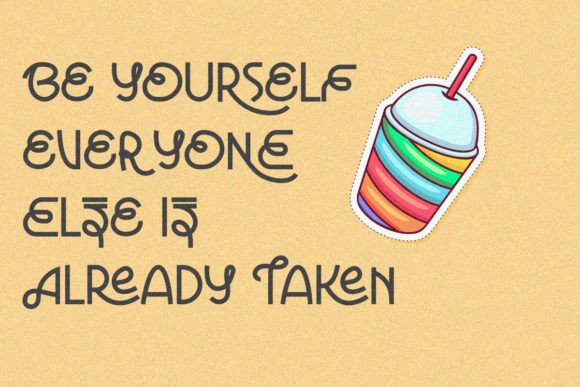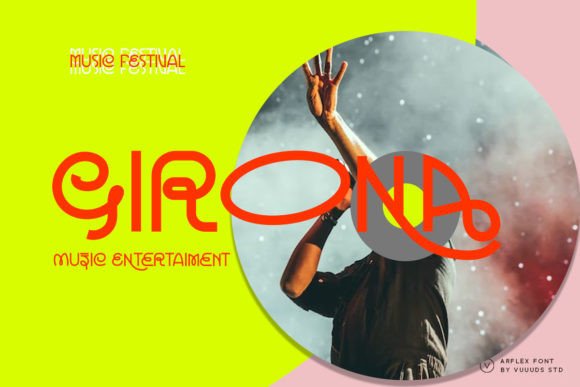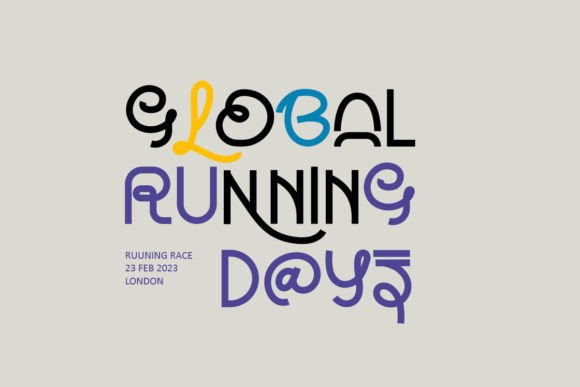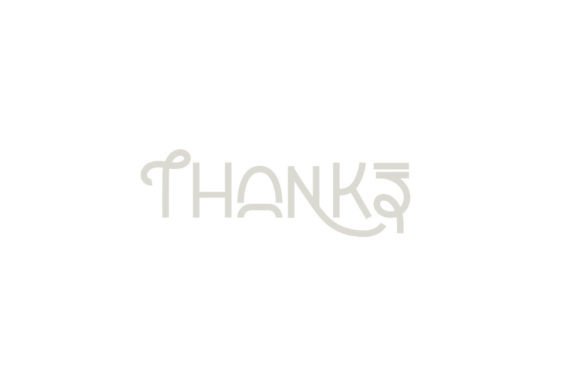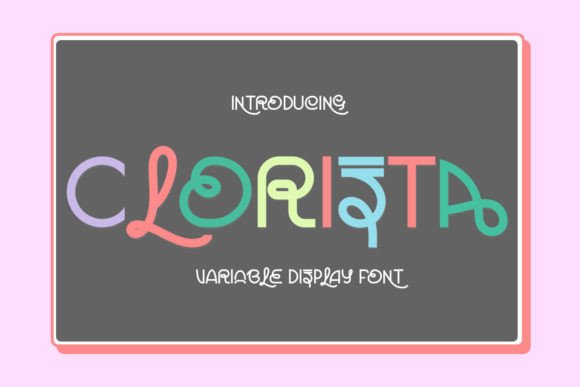
Introducing Clorista Font: The Ultimate Display Font for Joyful Designs
Are you tired of using the same old fonts in your designs? Do you want to add a touch of whimsy and playfulness to your creative projects? Look no further than Clorista Font, a cute and quirky display font that’s sure to bring a smile to your face. In this article, we’ll take a closer look at Clorista Font, its features, and how you can use it to elevate your designs.
What is Clorista Font?
Clorista Font is a display font designed to add a joyful touch to your designs. Its unique and quirky style makes it perfect for creative projects that require a bit of personality. Whether you’re a designer, crafter, or DIY enthusiast, Clorista Font is an excellent addition to your font collection.
Key Features of Clorista Font
- Cute and Quirky Style: Clorista Font has a playful and whimsical design that’s sure to capture attention.
- Display Font: Clorista Font is specifically designed as a display font, making it perfect for headlines, titles, and other creative projects.
- Easy to Read: Despite its quirky style, Clorista Font is easy to read, making it suitable for a wide range of applications.
- Versatile: Clorista Font can be used in various design projects, from digital graphics to print materials.
How to Use Clorista Font in Your Designs
Clorista Font is an incredibly versatile font that can be used in a wide range of design projects. Here are a few ideas to get you started:
- Social Media Graphics: Add a touch of whimsy to your social media graphics with Clorista Font. Use it to create eye-catching headlines, titles, and quotes.
- Digital Invitations: Create playful and fun digital invitations for parties, events, and other celebrations.
- Crafting Projects: Use Clorista Font to add a personal touch to your crafting projects, such as handmade cards, gift tags, and scrapbooking.
- Branding and Packaging: Add a unique and playful touch to your branding and packaging designs with Clorista Font.
Tips for Getting the Most Out of Clorista Font
Here are a few tips to help you get the most out of Clorista Font:
- Experiment with Colors: Clorista Font looks great in a variety of colors. Experiment with different color combinations to find the perfect fit for your design.
- Mix and Match with Other Fonts: Combine Clorista Font with other fonts to create a unique and visually appealing design.
- Use it Sparingly: While Clorista Font is playful and fun, it’s best to use it sparingly to avoid overwhelming your design.
Clorista Font is a beautiful and unique display font that’s sure to add a joyful touch to your designs. Its cute and quirky style makes it perfect for creative projects that require a bit of personality. Whether you’re a designer, crafter, or DIY enthusiast, Clorista Font is an excellent addition to your font collection. So why not give it a try and see how it can elevate your designs?
- Is Clorista Font suitable for body text?: While Clorista Font is easy to read, it’s primarily designed as a display font. It’s best to use it for headlines, titles, and other creative projects.